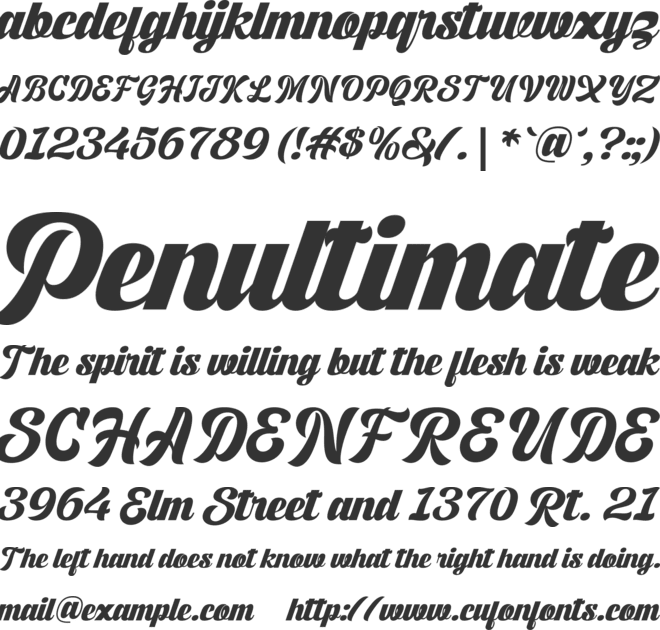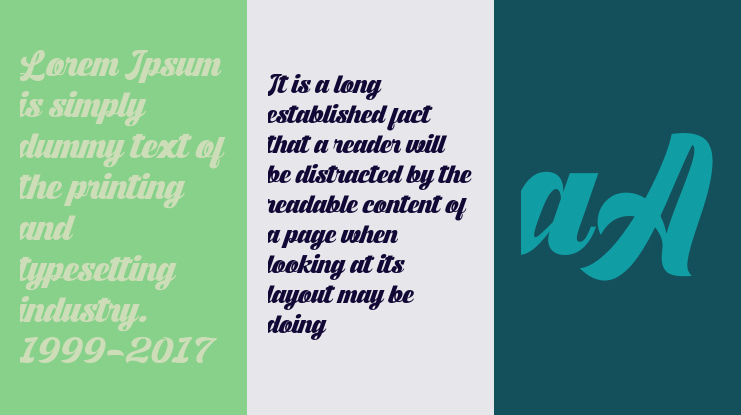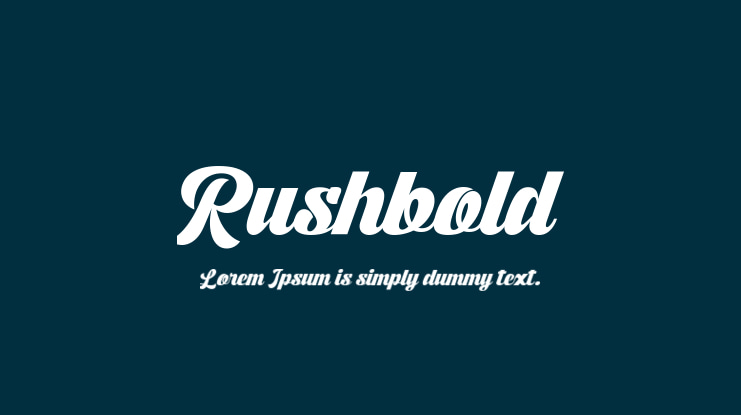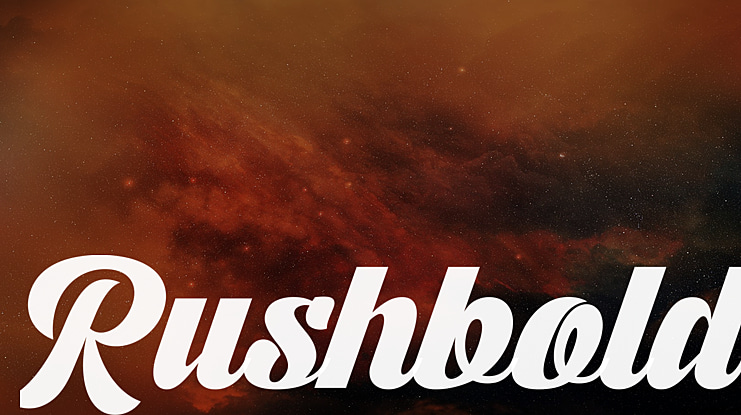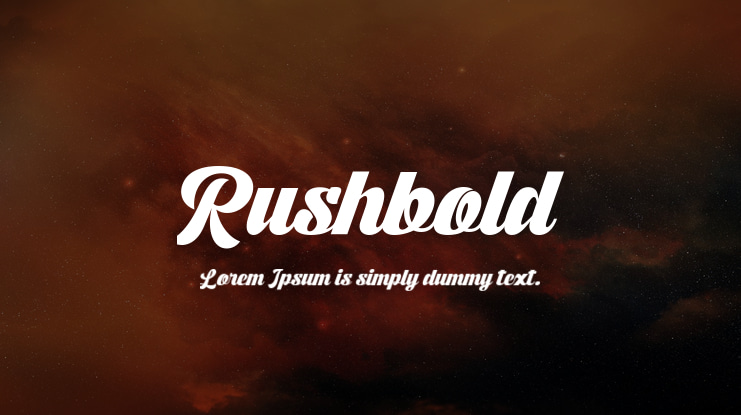
Rushbold Font
Rushbold is a gorgeous and bold handwritten font, crafted to give your headlines and logotype projects a retro touch. This font is PUA encoded which means you can access all of the glyphs and swashes with ease!